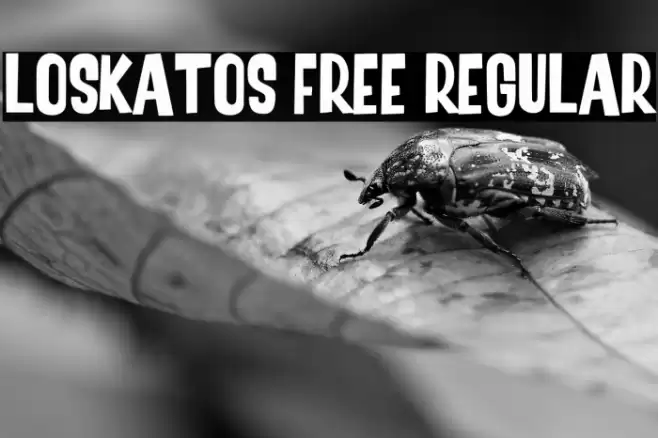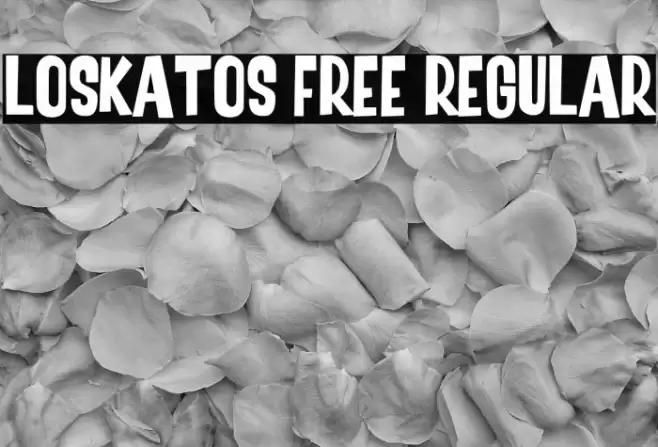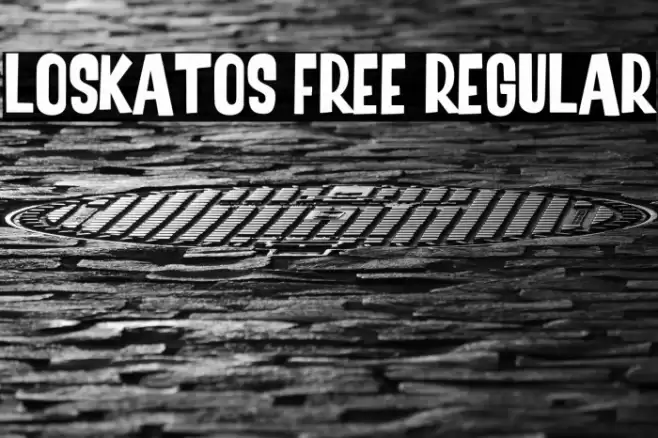
Loskatos Free Regular Font
Loskatos Free Regular Description
This font features a bold and playful design with a slightly condensed appearance. The characters have a unique, hand-drawn quality, giving them a lively and energetic feel. The strokes are thick and consistent, providing a strong visual impact. The uppercase letters are uniform in height, while the lowercase letters maintain a similar style, ensuring readability. The overall design is modern and dynamic, making it suitable for projects that require a touch of creativity and fun.
A bold, playful font with a hand-drawn, energetic style from Uncategorized fonts.
- Proposed Projects: Ideal for posters, children's books, branding, and creative advertising campaigns.